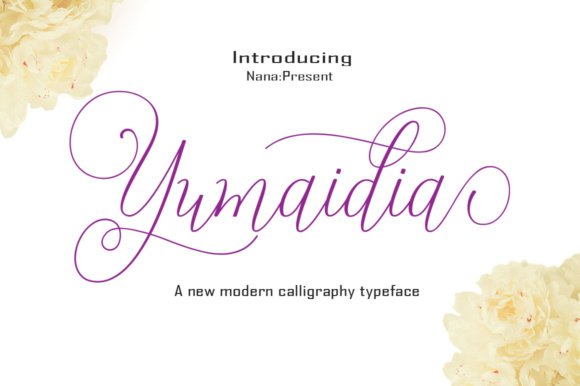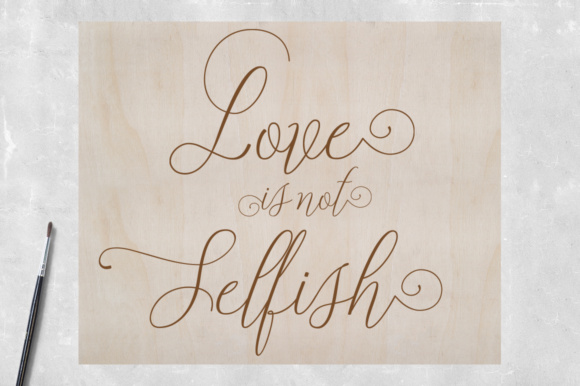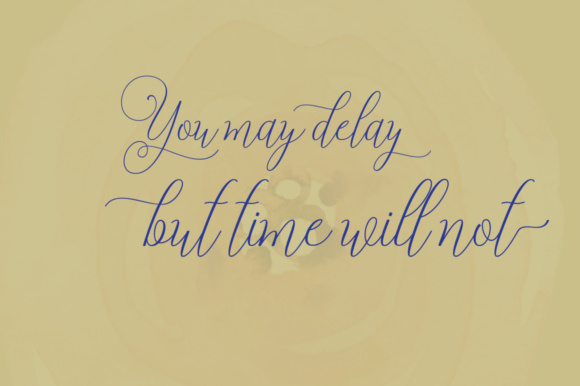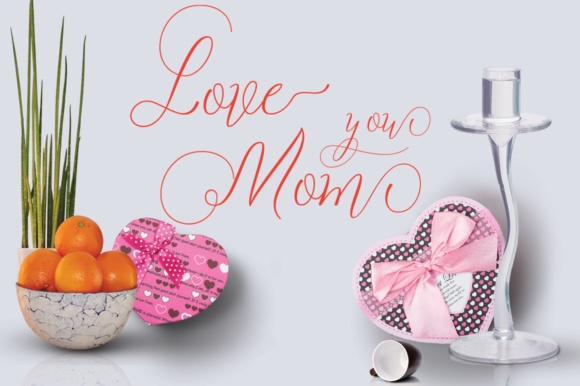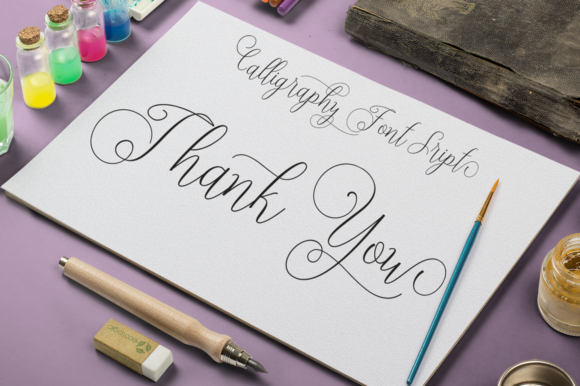
Yumaidia Font
About Yumaidia Font
Yumaidia is a gorgeous and swashy calligraphy font, ideal for use in a wide range of designs; this font comes with tons of stylistic alternates, and will add tons of class to any project.